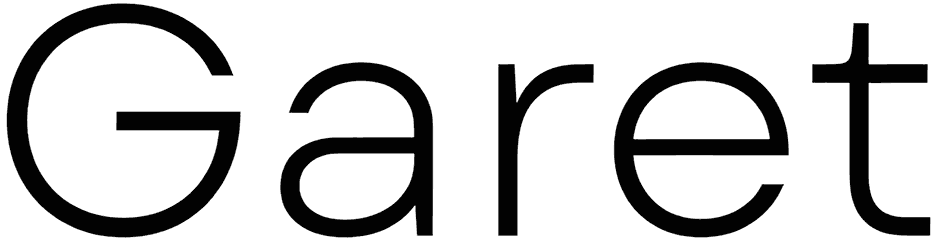
Garet Font
Designed byType Forward Foundry
Go for a sans serif font if you like to create a friendly and approachable vibe in your reader’s mind. Having said that, give Garet a try, no matter if you use it for a flyer and poster or a logo and billboard.
This book font comes in styles, one of which contains thin letters and the other with bold ones. From both of them, you get uppercase and lowercase the alphabet, numbers, and punctuation marks.
Garet is a modern geometric sans serif.
It is characterised by high x-height, clean and soft letterforms with a smooth masculine tone.
Garet derives its distinctive oval shapes from the optically perfect circle and has closed counters to further emphasise that form.